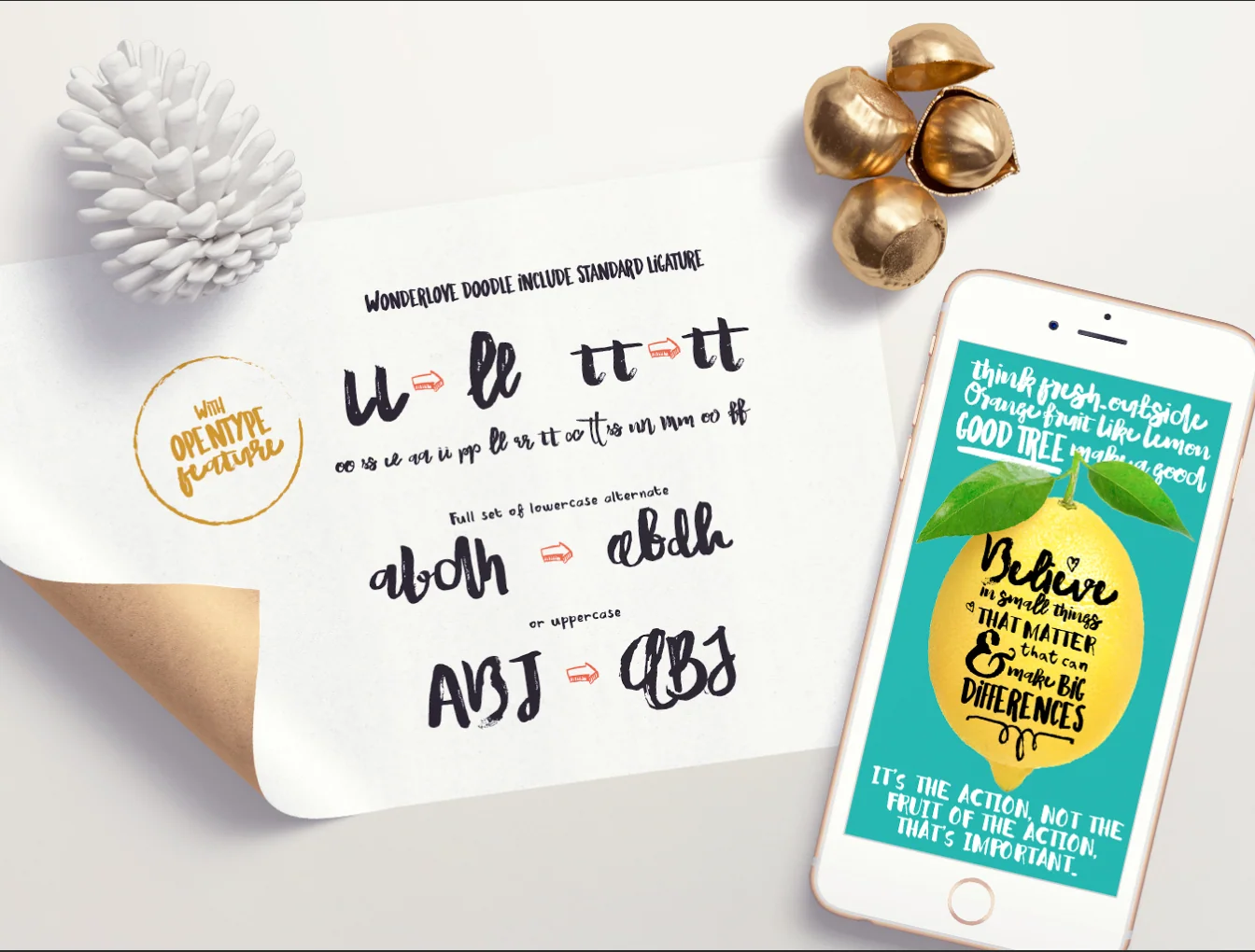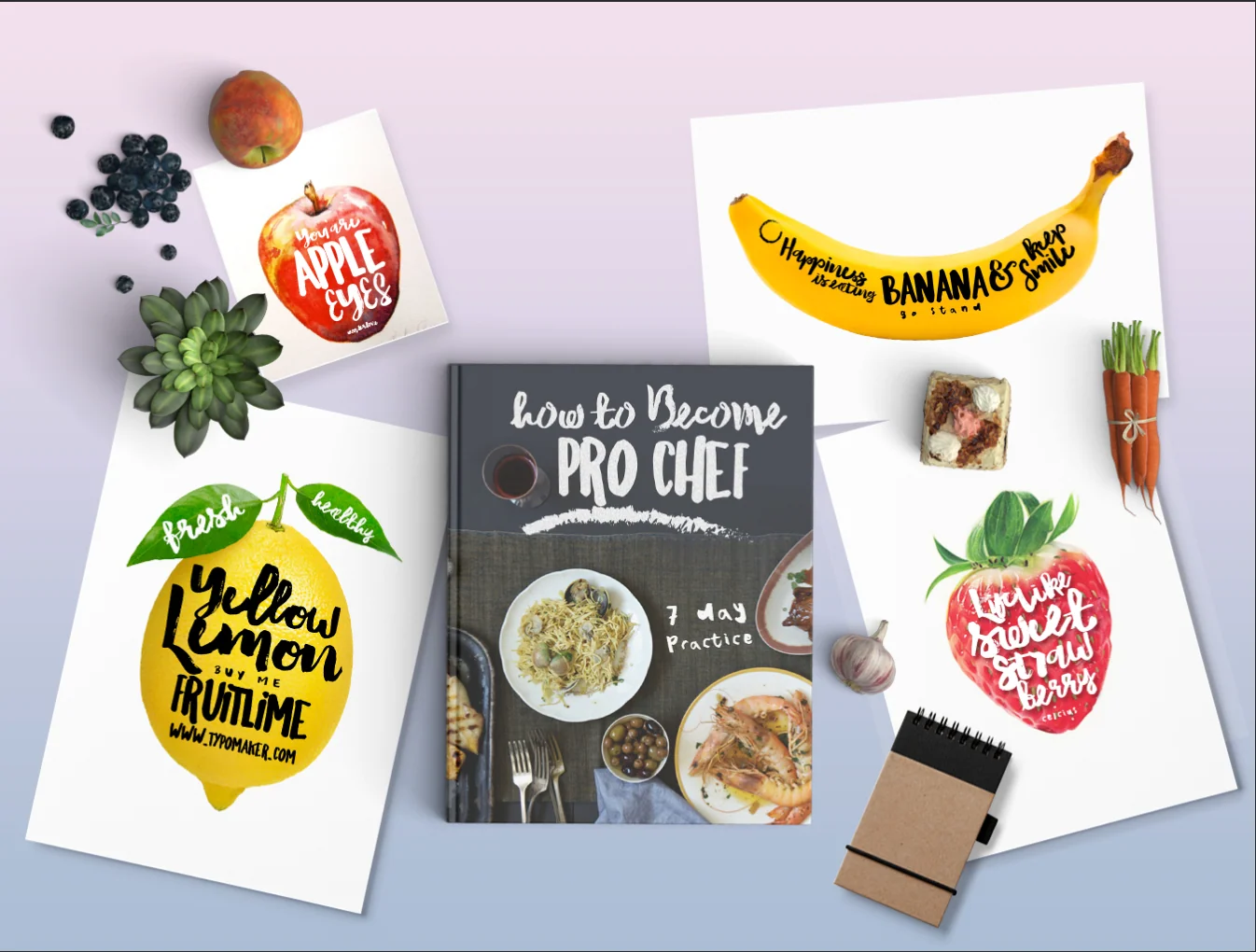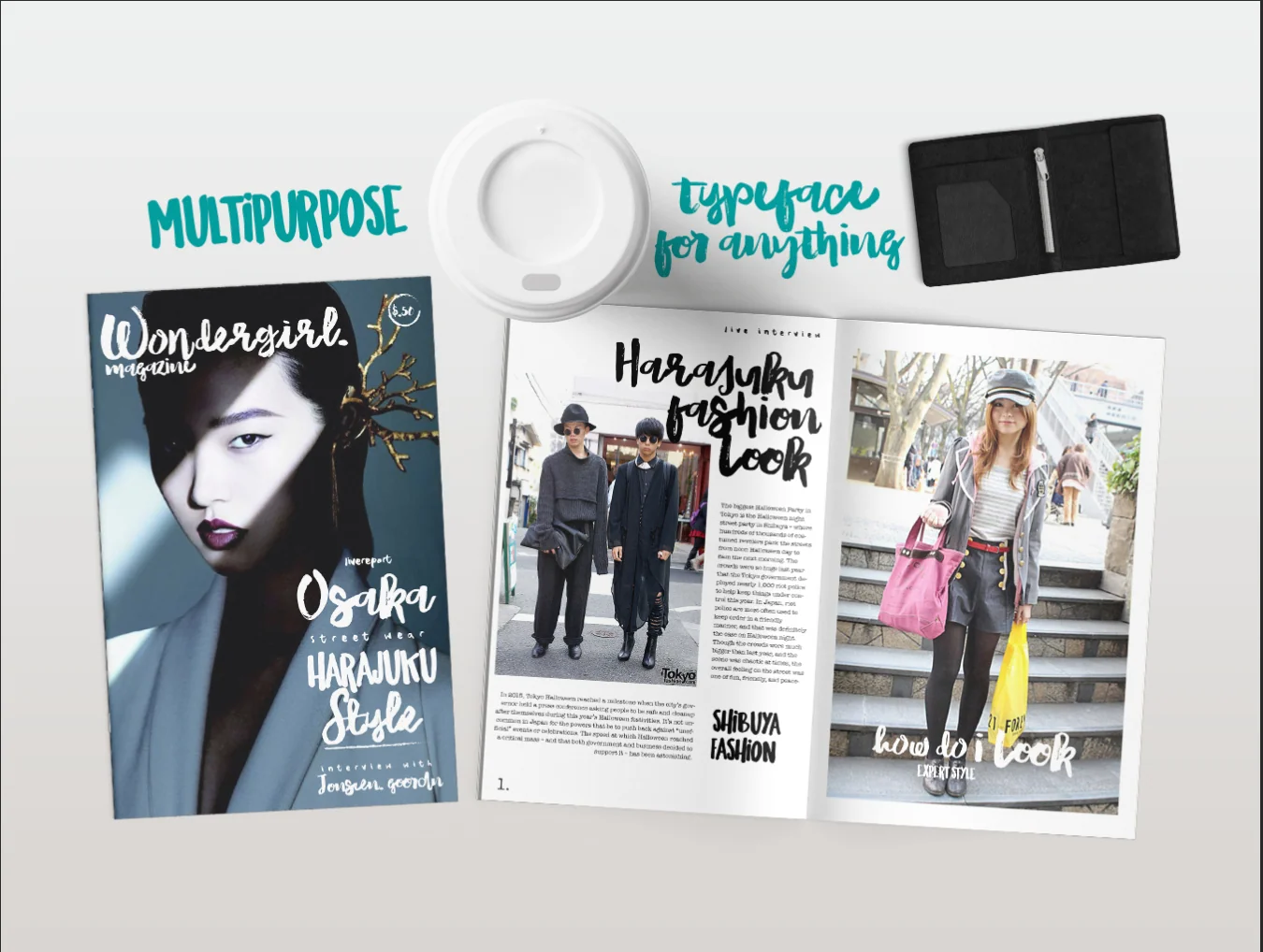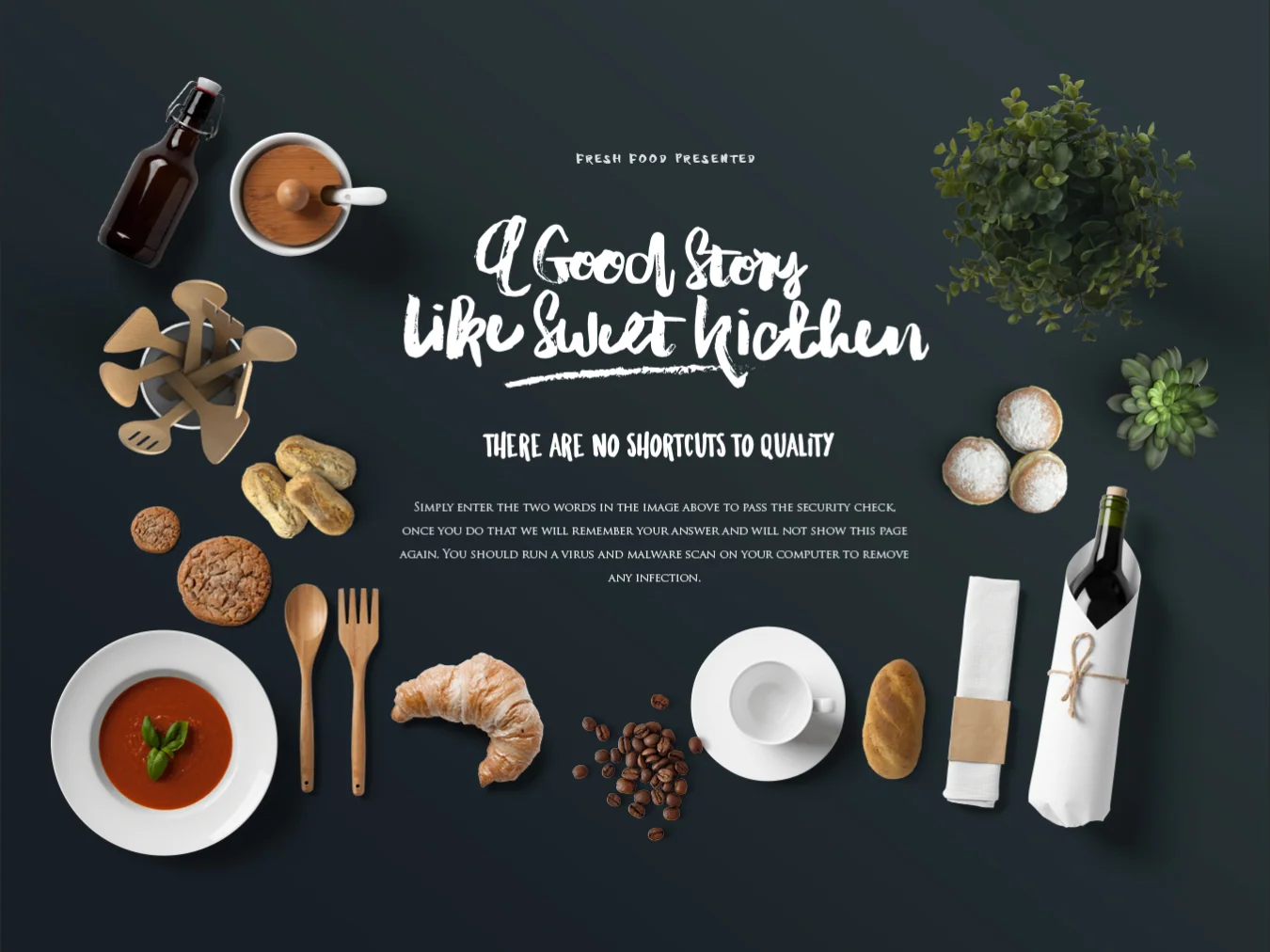
Wonderlove Typeface
4 typeface variations
Four typeface styles
86 extra ornaments in an AI file
600 included glyphs
Design standout lettering with lively ligatures and alternates. This font includes 600 glyphs for creating distinctive artwork, plus bonus ornaments to mix in for extra flair. Ideal for crafts, greetings, wedding stationery, recipe cards, headers, quote prints, logos, fashion blogs, and more.